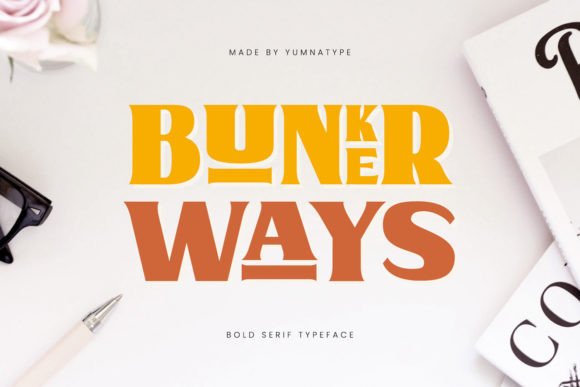
Bunker Ways Font: A Commanding Serif Font for Making Bold Statements
In the world of typography, fonts play a crucial role in conveying the tone and personality of a brand or message. When it comes to making a bold statement and leaving a lasting impression, the right font can make all the difference. This is where Bunker Ways comes in – a commanding serif font that exudes strength with its design. Crafted with precision and attention to detail, Bunker Ways is designed to make a lasting impact and assert its dominance in the world of typography.
The Design Philosophy Behind Bunker Ways
Bunker Ways is more than just a font – it’s a statement piece. Each letter in Bunker Ways is meticulously crafted to convey a sense of power and solidity, with clean lines and sharp angles that command attention. The bold weight of the font adds to its authoritative presence, making it ideal for making strong and impactful typographic statements. The designers behind Bunker Ways aimed to create a font that would exude confidence and strength, while also being elegant and refined.
The Key Features of Bunker Ways
So, what sets Bunker Ways apart from other fonts? Here are some of its key features:
- Commanding Presence: Bunker Ways has a bold and authoritative presence that demands attention. Its clean lines and sharp angles give it a sense of strength and solidity that’s hard to ignore.
- Meticulous Craftsmanship: Each letter in Bunker Ways is carefully crafted to ensure that it meets the highest standards of typographic excellence.
- Elegant and Refined: Despite its bold and commanding presence, Bunker Ways is also elegant and refined, making it suitable for a wide range of applications.
- Serif Design: Bunker Ways is a serif font, which gives it a sense of tradition and heritage. The serifs also help to guide the eye along the text, making it easier to read.
Use Cases for Bunker Ways
Bunker Ways is a versatile font that can be used in a variety of contexts. Here are some examples of how you can use Bunker Ways to make a bold statement:
- Headings and Titles: Bunker Ways is perfect for headings and titles where you want to make a strong impression. Its bold weight and commanding presence make it ideal for grabbing attention.
- Branding and Identity: If you’re looking for a font that will help you establish a strong brand identity, Bunker Ways is a great choice. Its unique design and authoritative presence make it perfect for logos, business cards, and other marketing materials.
- Advertising and Marketing: Bunker Ways is also great for advertising and marketing materials, such as billboards, posters, and flyers. Its bold and commanding presence will help your message stand out from the crowd.
Tips for Using Bunker Ways Effectively
To get the most out of Bunker Ways, here are some tips for using it effectively:
- Use it Sparingly: Bunker Ways is a bold font, so it’s best to use it sparingly to avoid overwhelming the reader. Use it for headings and titles, and pair it with a simpler font for body text.
- Pair it with Contrasting Fonts: To create visual interest, pair Bunker Ways with contrasting fonts that have a different style or weight. This will help to create a sense of hierarchy and guide the eye along the text.
- Experiment with Colors: Bunker Ways looks great in a variety of colors, so don’t be afraid to experiment and find the perfect hue to match your brand or message.
In conclusion, Bunker Ways is a commanding serif font that exudes strength and confidence with its design. Its bold weight, clean lines, and sharp angles make it perfect for making strong and impactful typographic statements. Whether you’re looking to establish a strong brand identity, create eye-catching headings and titles, or simply make a bold statement, Bunker Ways is the perfect choice. With its versatility, elegance, and refinement, Bunker Ways is sure to become a staple in your typographic arsenal.
- What is Bunker Ways?: Bunker Ways is a commanding serif font designed to make a bold statement and leave a lasting impression.
- What are the key features of Bunker Ways?: Bunker Ways has a bold and authoritative presence, meticulous craftsmanship, elegant and refined design, and serif design.
- How can I use Bunker Ways?: Bunker Ways can be used for headings and titles, branding and identity, advertising and marketing materials, and more.